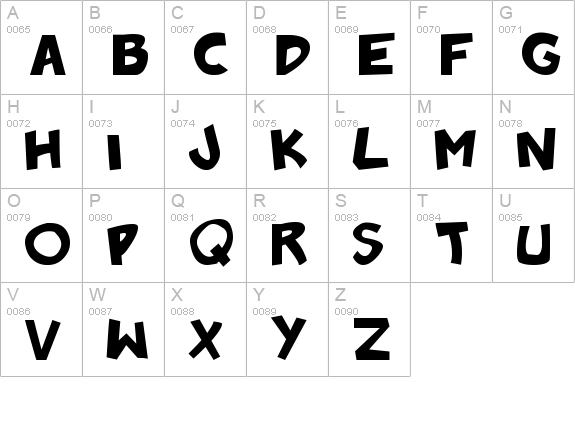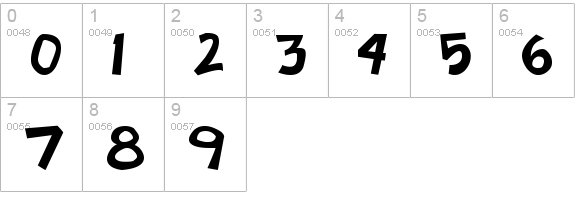
Badonk-a-donk Font Details
The Badonk-a-donk font is a playful and whimsical typeface that exudes a sense of fun and energy. Its bold and rounded letterforms are sure to make any design pop with personality. Whether you're working on a poster, flyer, or social media graphic, this font will add a touch of charm and creativity. Best of all, the Badonk-a-donk font is completely free to download at FontsMarket.com. You can easily elevate your designs without breaking the bank. Don't miss out on this fantastic opportunity to add a unique flair to your projects with the Badonk-a-donk font. Download it today and let your creativity soar!